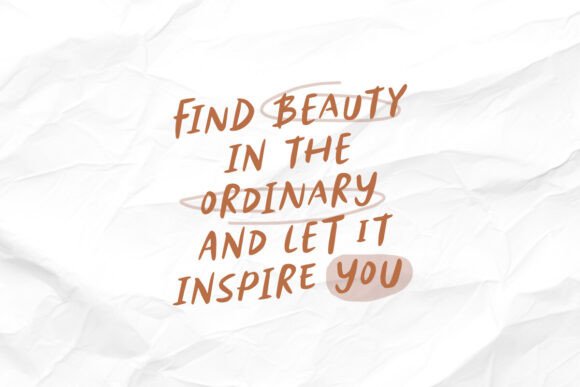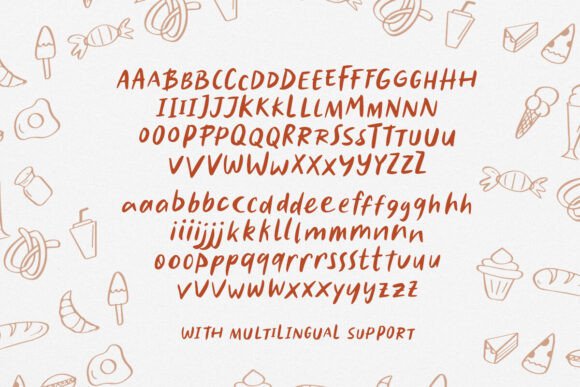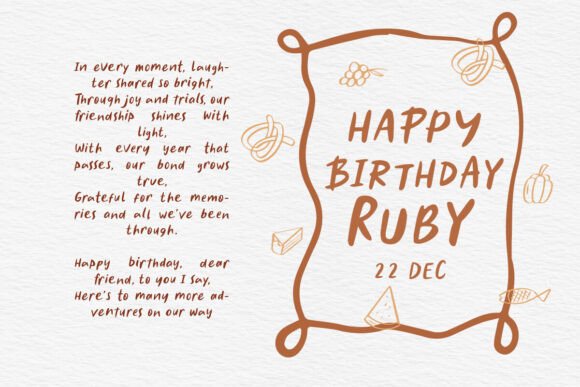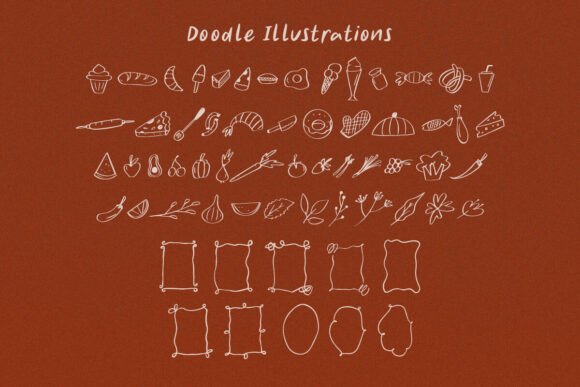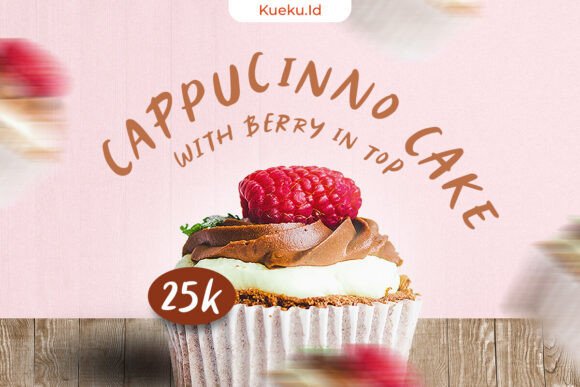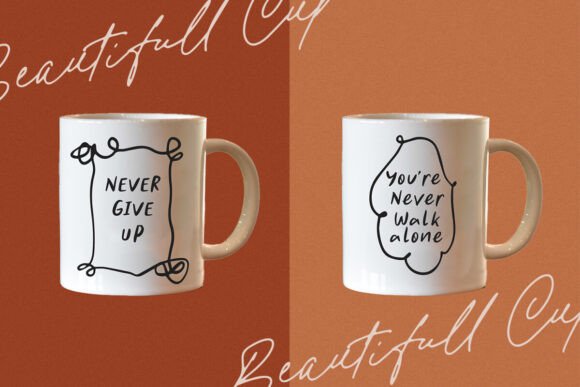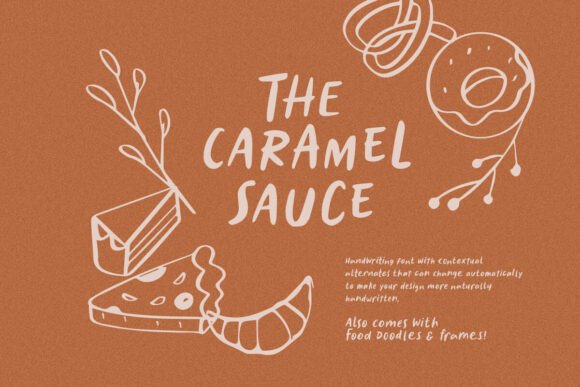
Introducing Caramel Sauce Font: The Perfect Handwriting Font for Designers and Crafters
Are you tired of using the same old fonts for your designs? Do you want to add a personal touch to your projects? Look no further than Caramel Sauce Font, a beautiful handwriting font with a doodle that is sure to take your designs to the next level. In this article, we’ll take a closer look at the features of Caramel Sauce Font and how it can be used to enhance your designs.
What is Caramel Sauce Font?
Caramel Sauce Font is a handwriting font that is designed to look like it was written with a pen or pencil. It has a unique, doodle-like quality that gives it a personal and informal feel. The font comes with contextual alternates, which means that it can automatically switch between different versions of each letter to create a more natural, handwritten look.
Features of Caramel Sauce Font
So, what makes Caramel Sauce Font so special? Here are just a few of its key features:
- Handwritten look: Caramel Sauce Font has a unique, handwritten look that is perfect for designs that need a personal touch.
- Contextual alternates: The font comes with contextual alternates, which allow it to automatically switch between different versions of each letter to create a more natural, handwritten look.
- Doodle elements: The font includes a range of doodle elements, including food, leaves, and frames, that can be used to add a playful touch to your designs.
- Multipurpose: Caramel Sauce Font can be used for any purpose, from quotes and posters to packaging and branding.
How to Use Caramel Sauce Font
So, how can you use Caramel Sauce Font in your designs? Here are a few ideas to get you started:
- Quotes and posters: Caramel Sauce Font is perfect for creating eye-catching quotes and posters. Simply type out your text and add a few doodle elements to give it a personal touch.
- Packaging and branding: The font can be used to create unique and eye-catching packaging and branding materials. Use it to add a personal touch to your product labels or business cards.
- Social media graphics: Caramel Sauce Font is also great for creating social media graphics. Use it to create eye-catching posts and stories that will help you stand out from the crowd.
Benefits of Using Caramel Sauce Font
So, why should you choose Caramel Sauce Font for your designs? Here are just a few of the benefits of using this font:
- Unique look: Caramel Sauce Font has a unique, handwritten look that will help your designs stand out from the crowd.
- Easy to use: The font is easy to use and comes with contextual alternates, which make it easy to create a natural, handwritten look.
- Multipurpose: Caramel Sauce Font can be used for any purpose, from quotes and posters to packaging and branding.
- Time-saving: The font’s doodle elements can save you time and effort when creating designs. Simply add them to your project and you’re done!
In conclusion, Caramel Sauce Font is a beautiful handwriting font with a doodle that is perfect for designers and crafters. Its unique, handwritten look and contextual alternates make it easy to use and versatile. With its range of doodle elements, including food, leaves, and frames, it’s the perfect font for adding a personal touch to your designs. Whether you’re creating quotes, posters, packaging, or branding materials, Caramel Sauce Font is the perfect choice.